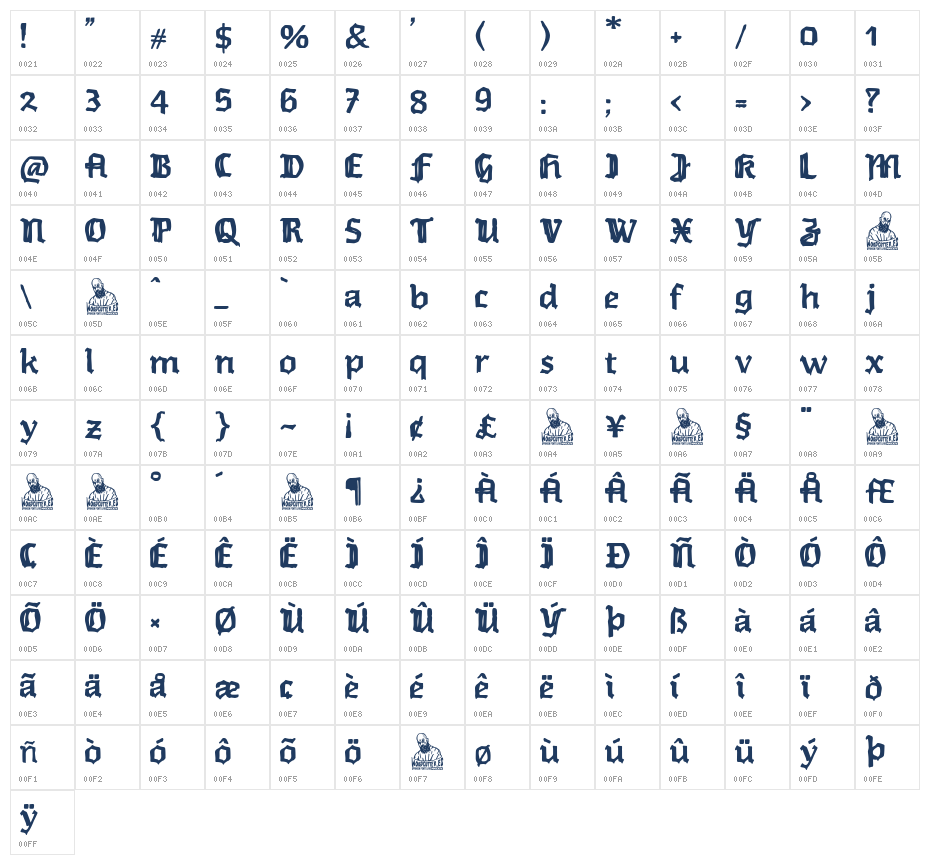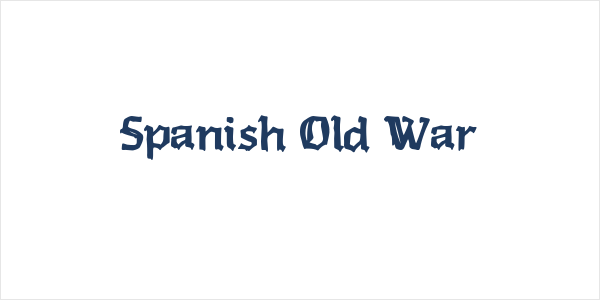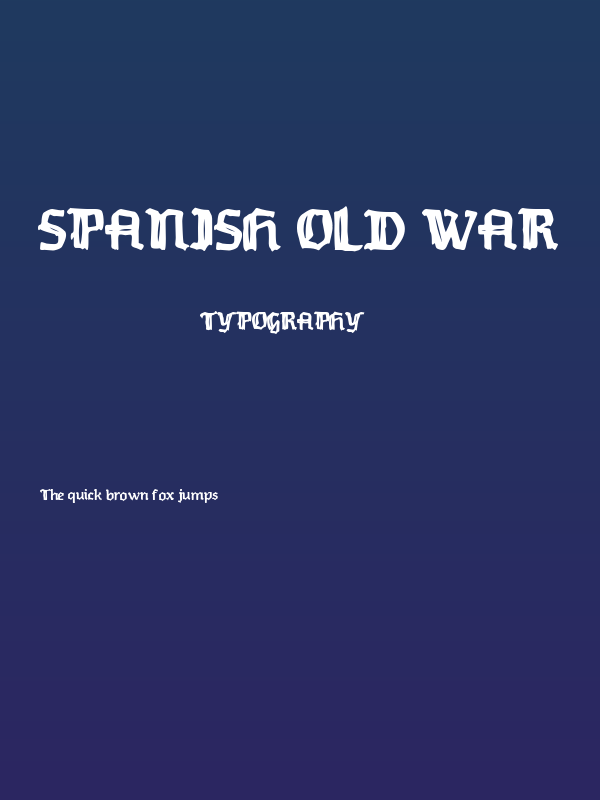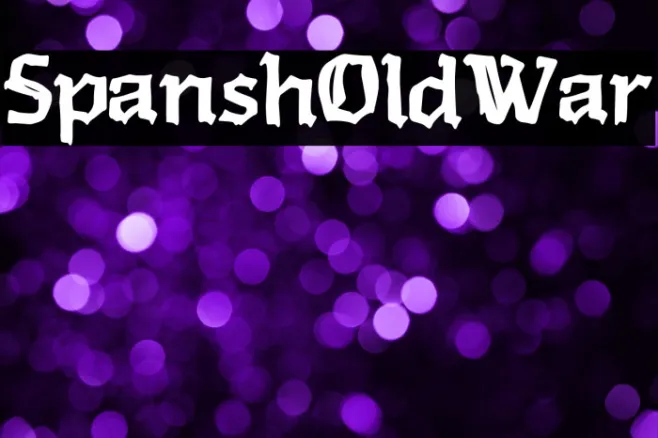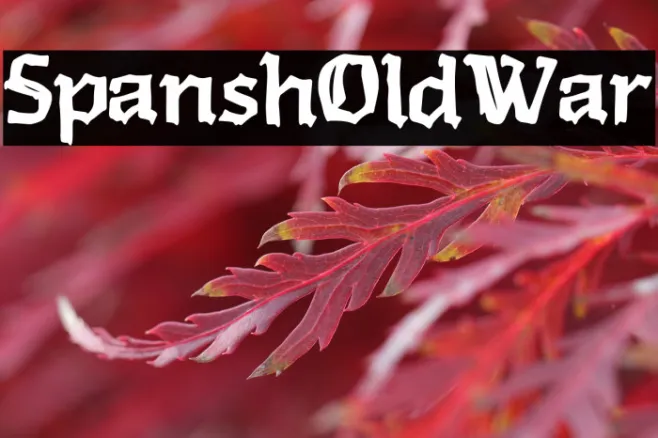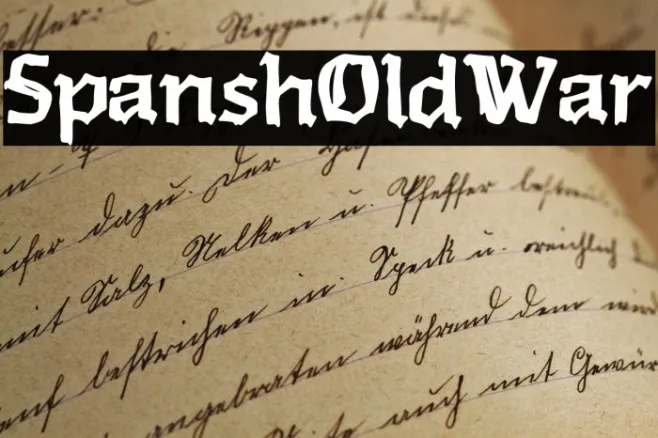
Spanish Old War Font
Spanish Old War Description
A decorative, gothic-style font with a medieval appearance, characterized by jagged edges and ornate details.
| Overall Style | Medieval, Gothic, Decorative |
| Use Case | Headlines, Titles, Logos, Posters |